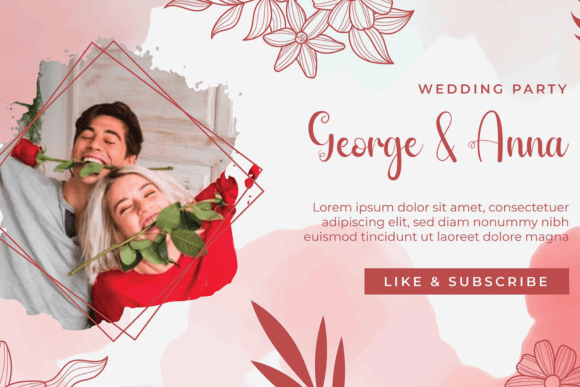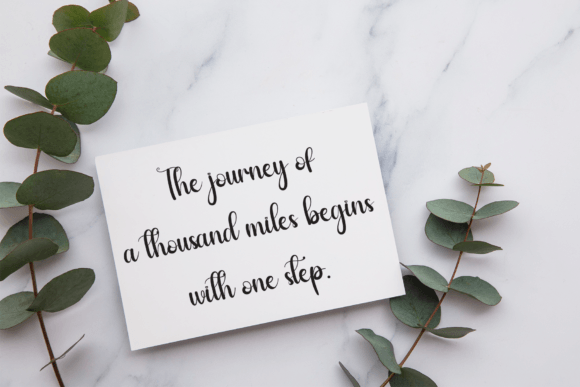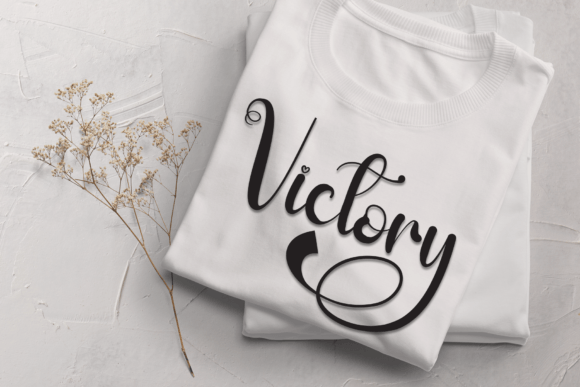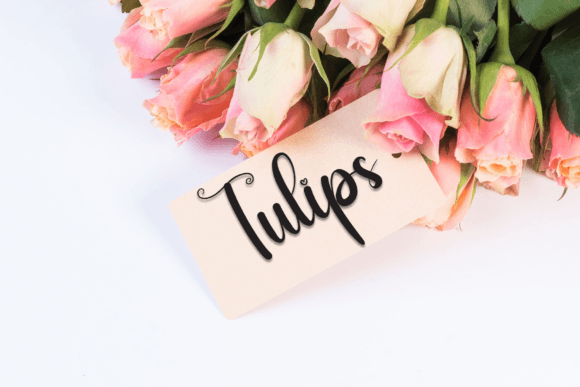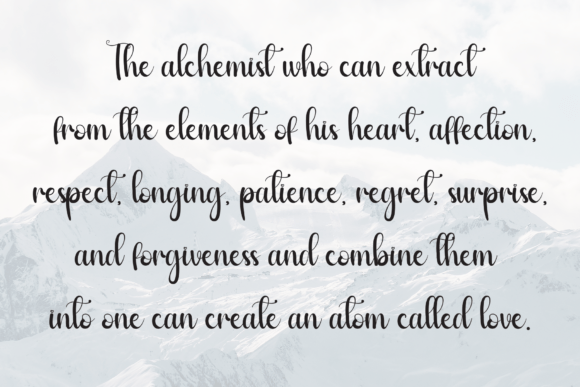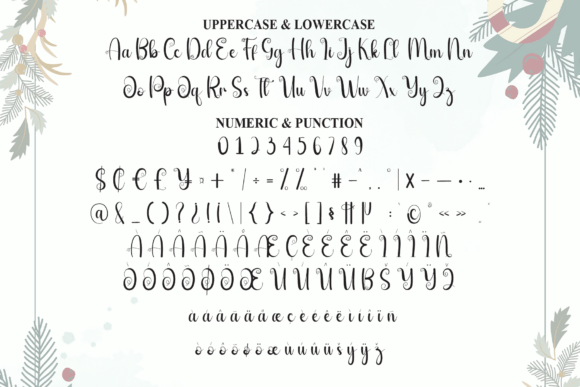
Introducing Friday Font: The Amicable Charm of Handwritten Elegance
I’ll never forget the design project that led me to discover Friday Font. I was working on a wedding invitation suite for a lovely couple, and I was struggling to find the perfect font that captured their playful yet elegant personalities. That’s when I stumbled upon Friday Font, and it instantly became the perfect fit. In this article, I’ll share my experience with this beautiful handwritten display font, its features, and how to make the most of it in your designs.
A Personal Review of Friday Font
As a designer, I’m always on the lookout for fonts that can add a touch of personality to my work. Friday Font did not disappoint. Here’s what I love about it:
- ✨ Sweet and playful strokes: Every letter in Friday Font exudes a sense of joy and friendliness, making it perfect for designs that require a dash of whimsy.
- ✅ Elegant yet approachable: This font strikes the perfect balance between sophistication and playfulness, making it suitable for a wide range of design projects.
- 💕 Perfect for wedding designs: Friday Font is a dream come true for wedding designers. Its romantic and elegant feel makes it ideal for wedding invitations, save-the-dates, and other wedding-related materials.
While Friday Font is an excellent choice for many design projects, it’s not without its quirks:
- 🤔 Limited use in formal designs: Due to its playful nature, Friday Font may not be the best fit for formal designs, such as corporate branding or business documents.
- ⚠️ Legibility at small sizes: Like many script fonts, Friday Font can become difficult to read at small sizes. It’s best used at larger sizes where its beauty can shine.
The Story Behind Friday Font
Friday Font was designed with the intention of creating a beautiful, handwritten font that captures the essence of joy and playfulness. Inspired by the elegance of traditional calligraphy and the friendliness of handwritten letters, Friday Font is the perfect choice for designers who want to add a touch of personality to their work.
| Font Name | Friday Font |
| What is Friday Font best used for? | Friday Font is perfect for designs that require a touch of elegance and playfulness, such as wedding invitations, greeting cards, and branding. |
| Is Friday Font suitable for body text? | No, Friday Font is best used for display text or headings. Its playful nature and script style make it less suitable for body text. |